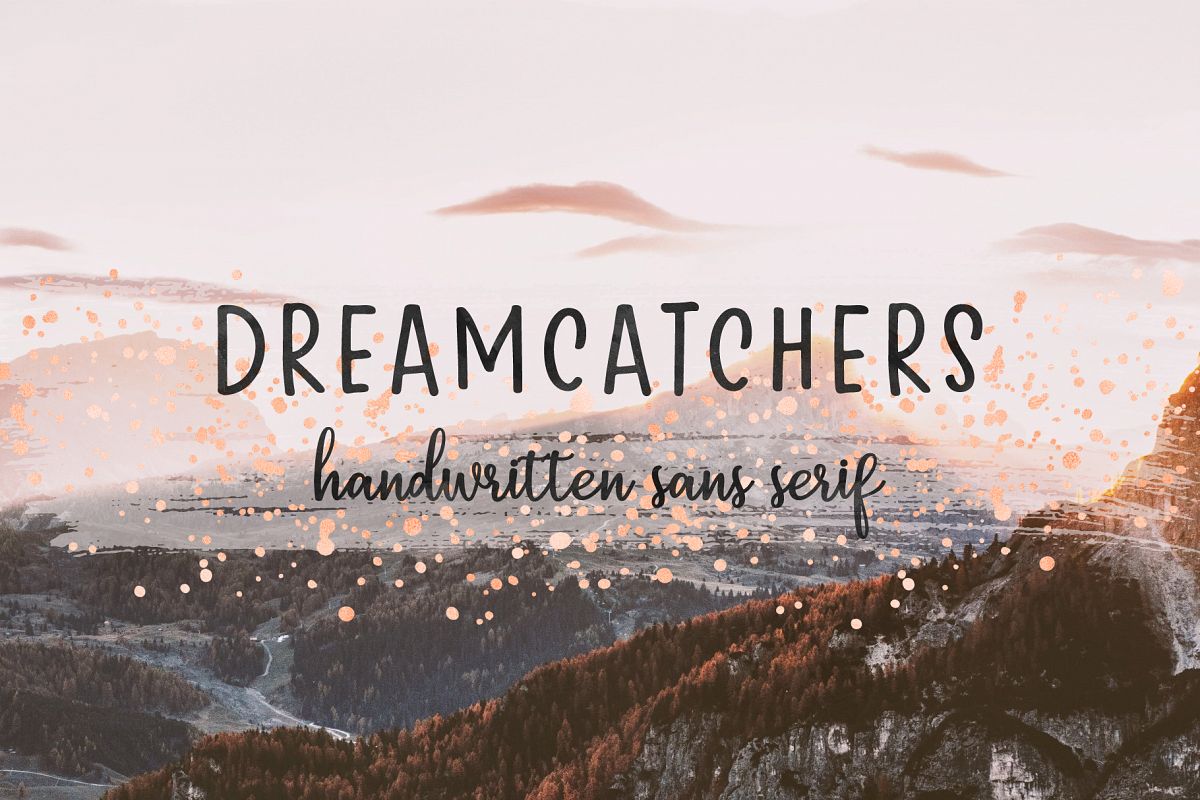
Dreamcatchers | A Playful Sans Serif
Dreamcatchers is a handwritten sans serif font with a playful and dreamy look and bouncy baseline. This casual marker font will be perfect for greeting cards, posters, social media, photography and much more.